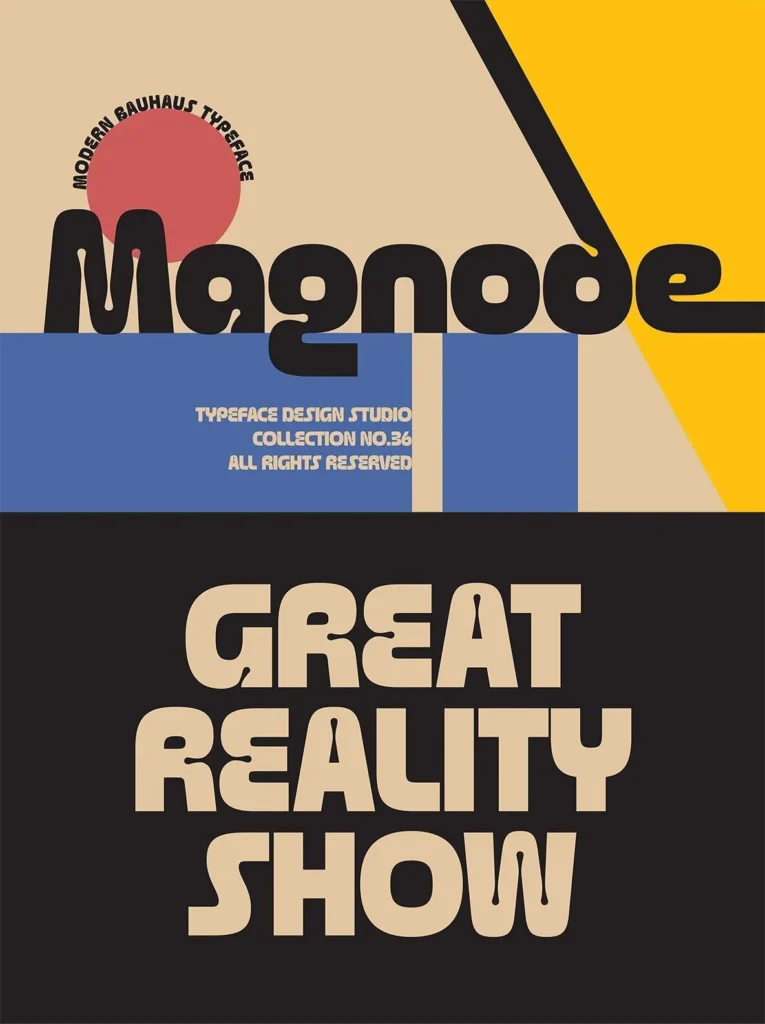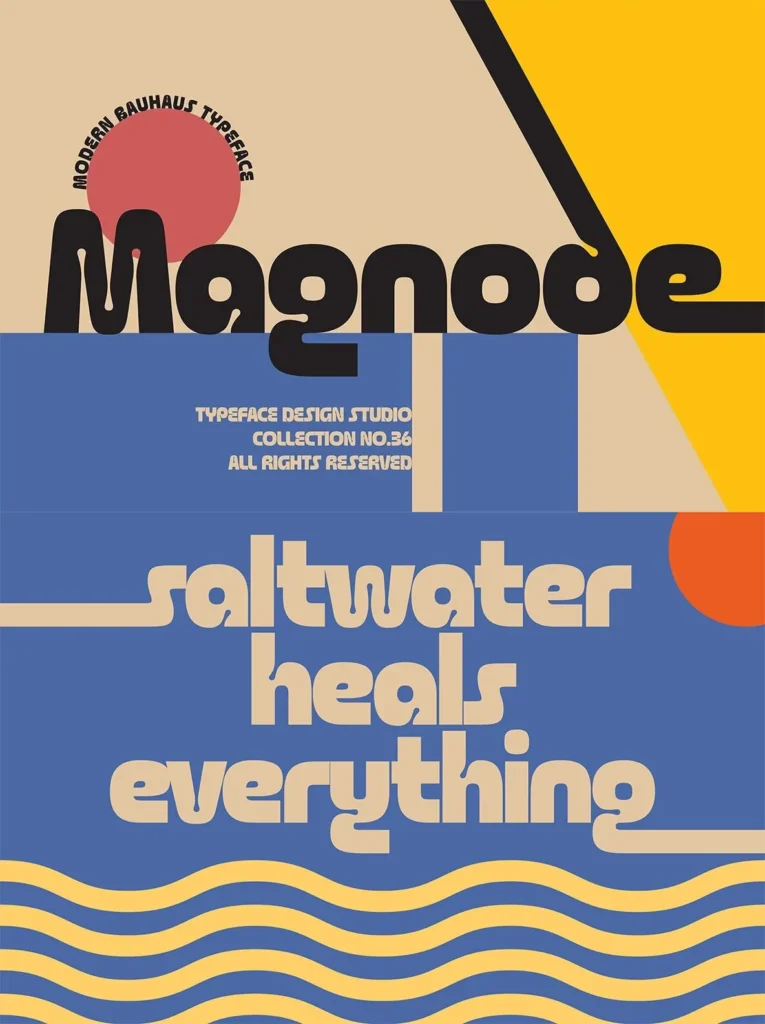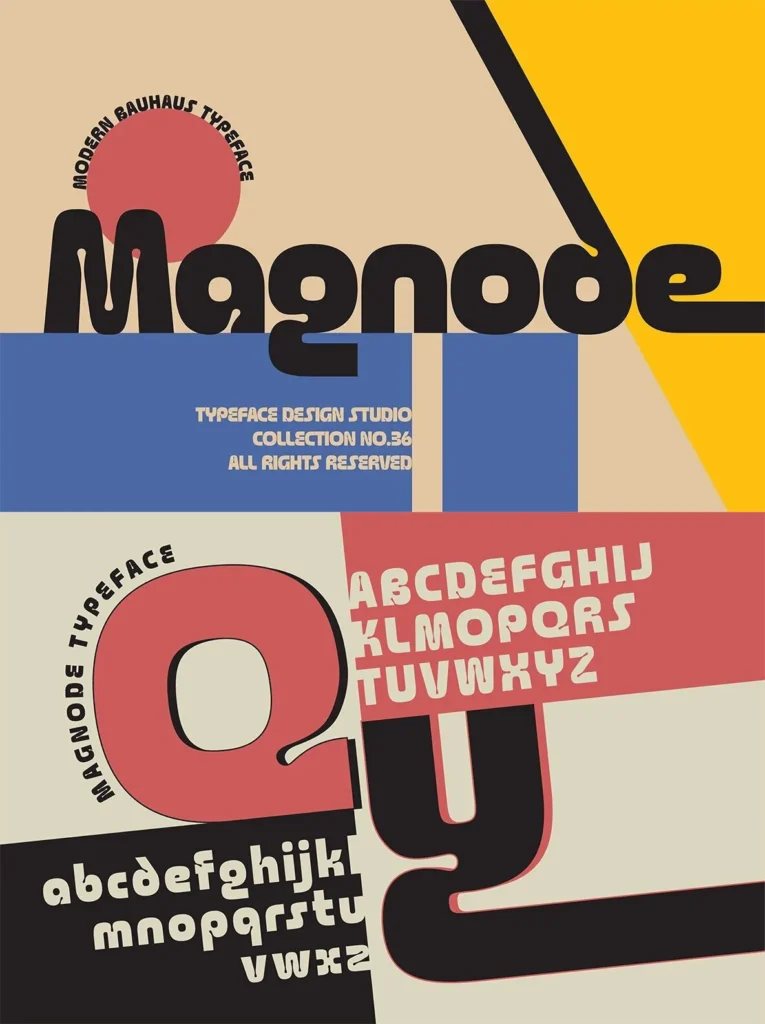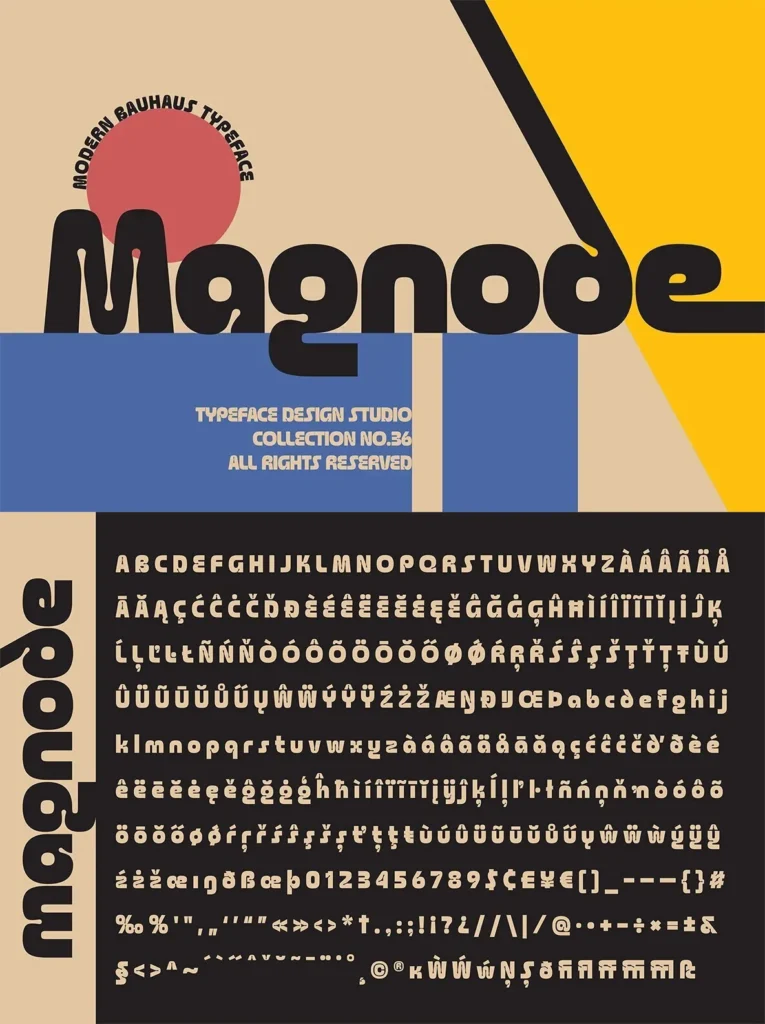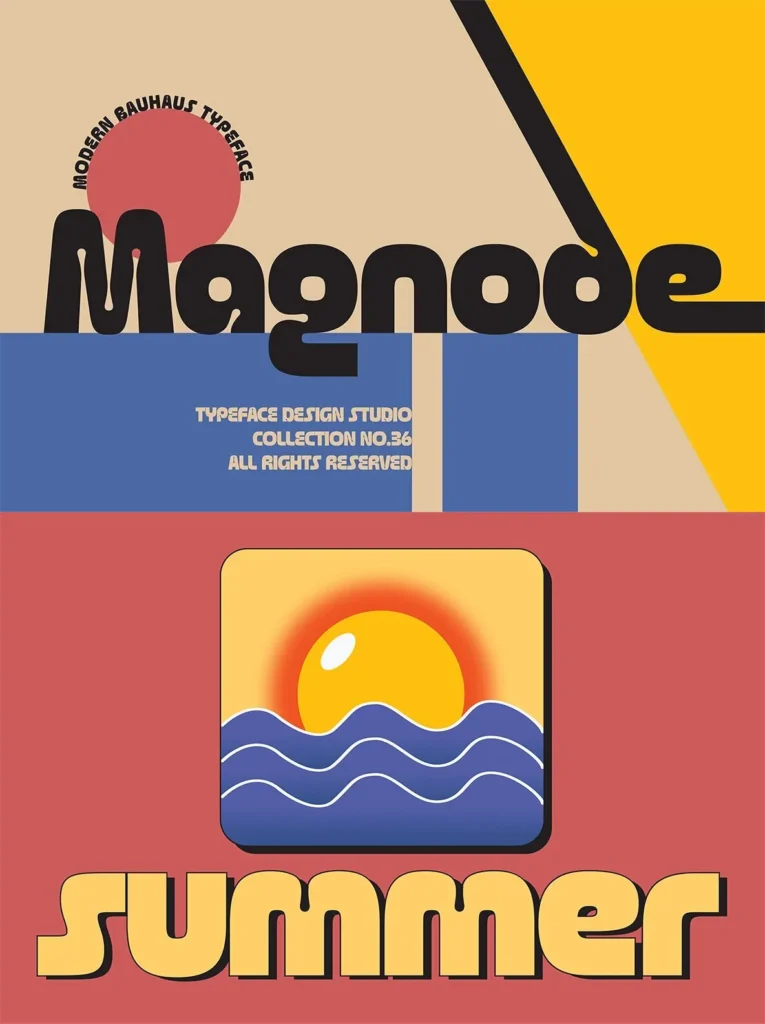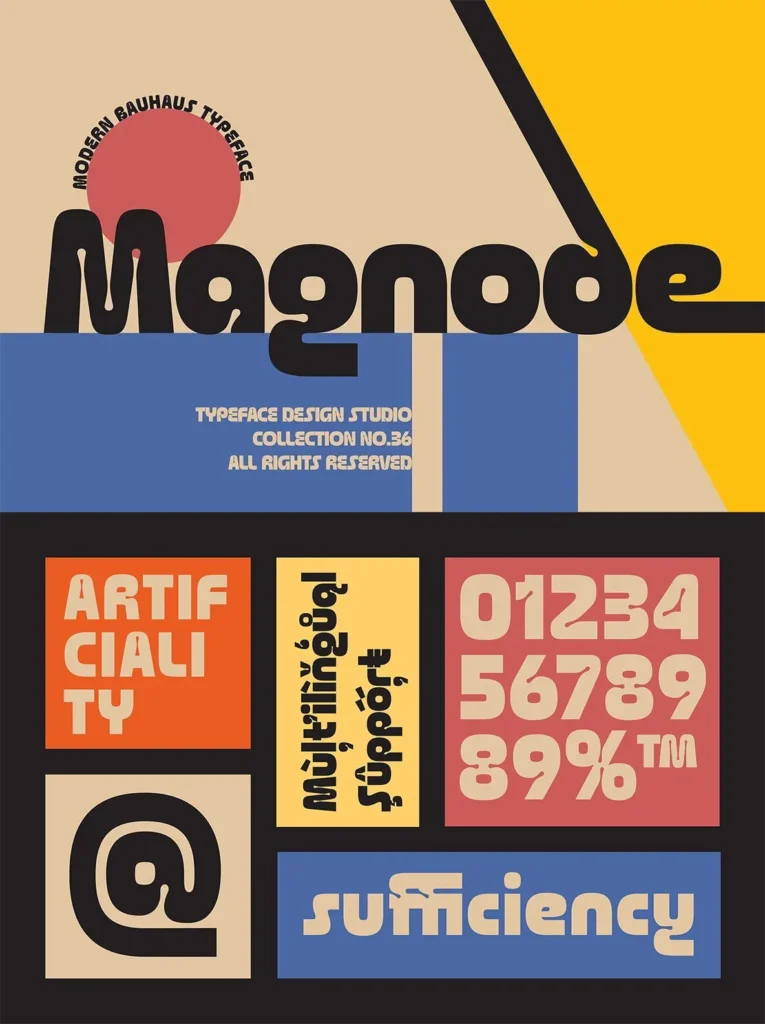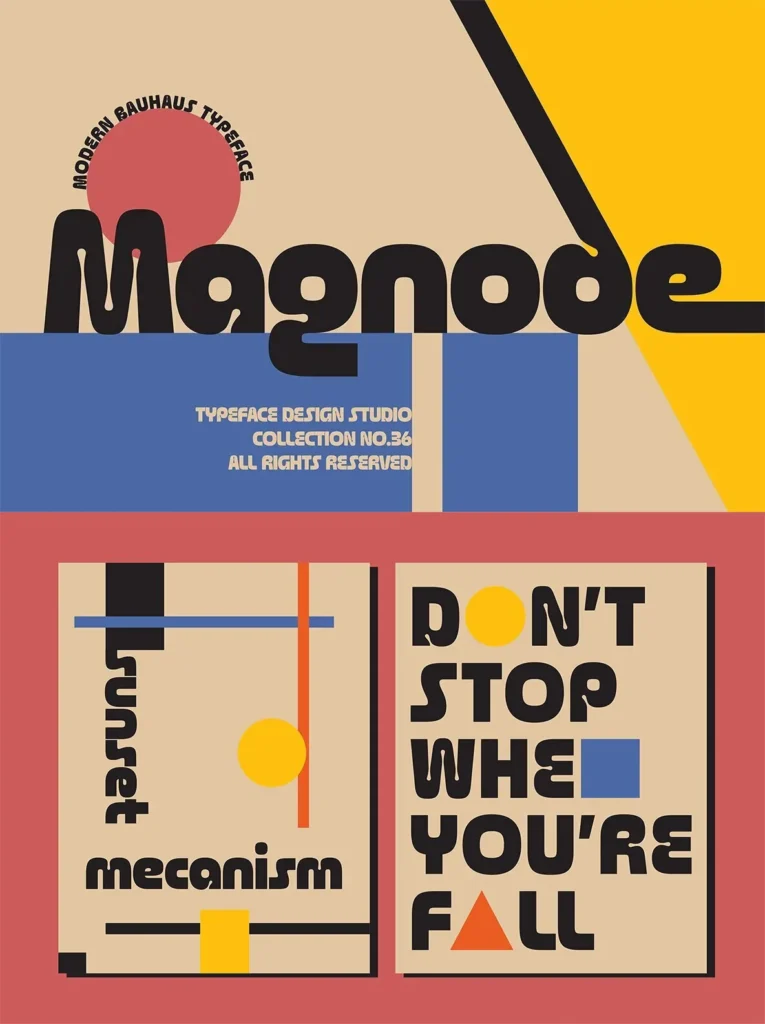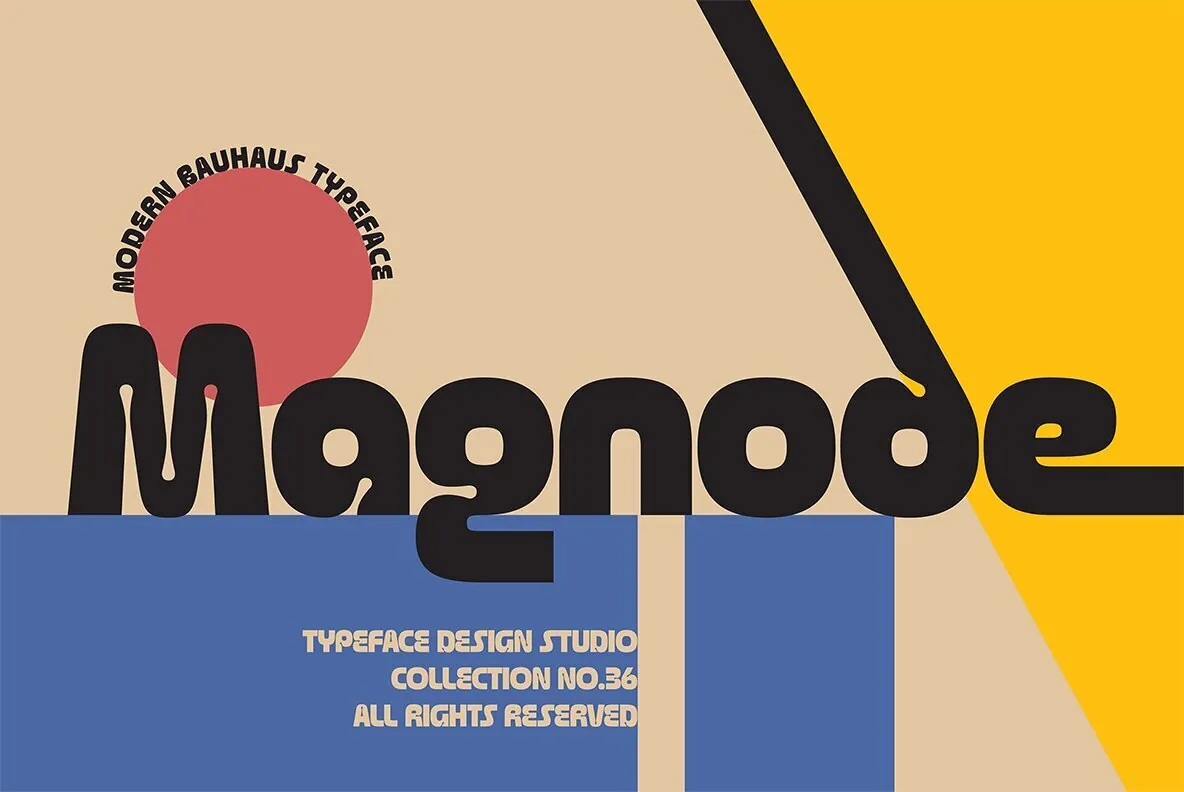
Magnode: Contemporary Edge in Bauhaus Tradition
Magnode is a sans serif font exclusive to YouWorkForThem, drawing inspiration from classic Bauhaus typefaces such as Avant-Garde and Art Deco. While rooted in timeless influences, it introduces unique experimental elements like distinctive ink traps, providing a modern twist. This versatile font is perfect for those seeking to blend vintage style with contemporary design principles, making it an excellent choice for modern branding, posters, and digital content.
Features:
Extended Latin character set covering over 85 languages.
Over 360 glyphs for extensive versatility in design.
OpenType capabilities with features like Alternates, Ordinals, Standard Ligatures, and Superscript.
Magnode’s geometric structure combined with experimental detailing ensures that it stands out, yet integrates seamlessly into a variety of creative projects. Ideal for global projects, it merges vintage aesthetics with modern design, making it an indispensable tool for designers and creative professionals.